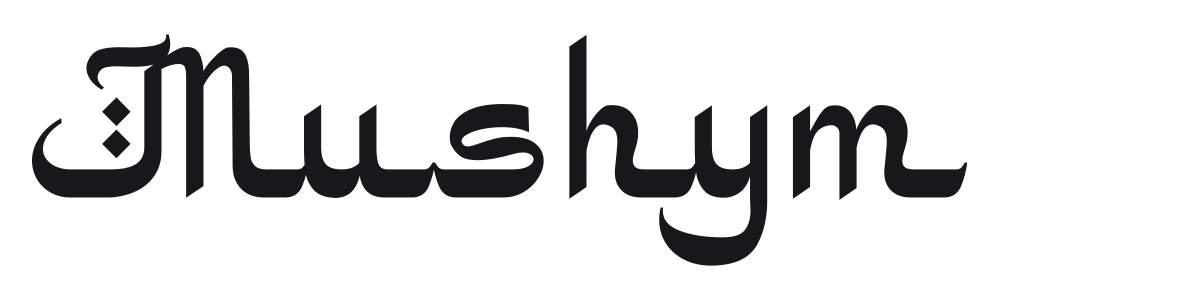
Mushym
Mushym is a bold Latin display font built on Arabic calligraphic structure, with thick flowing strokes and looped terminals that give each word the feel of connected script. The heavy monoweight construction and sweeping joins create a dense, rhythmic texture at headline sizes. It occupies a rare space between Latin type and Arabic visual tradition.